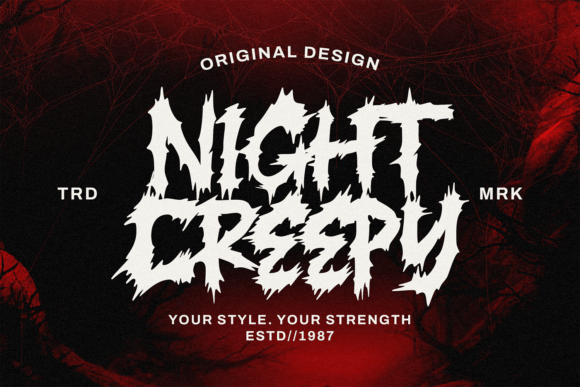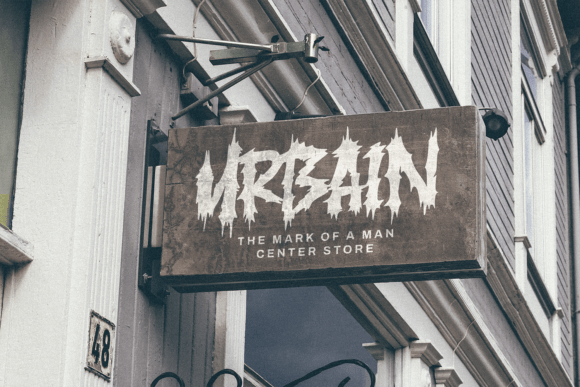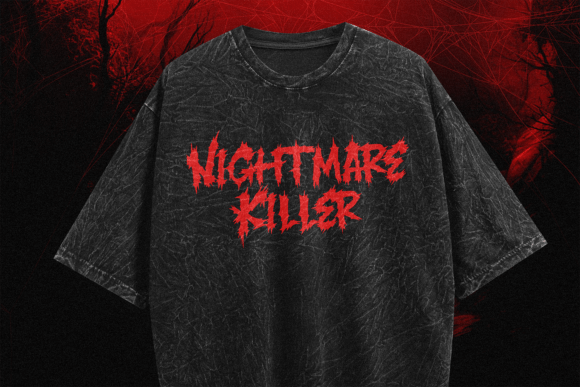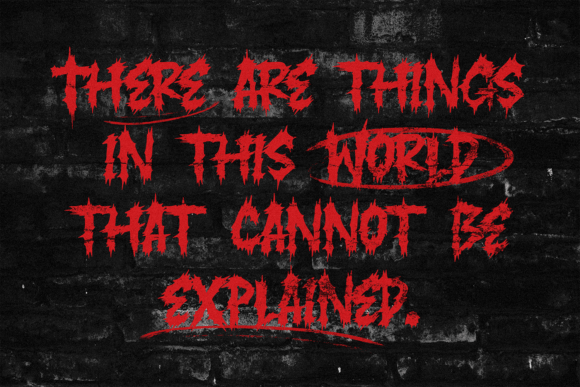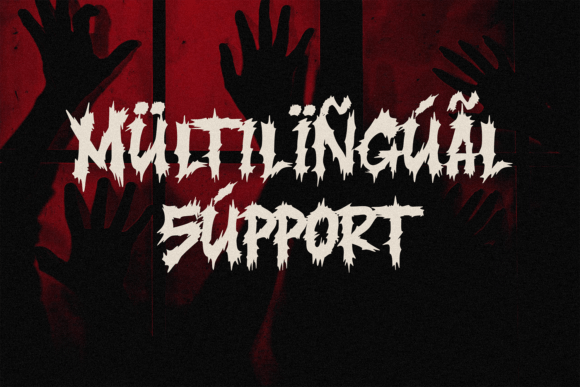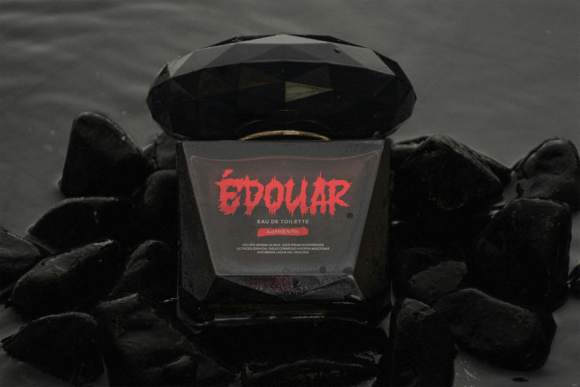
Introduction to Room Number Four Font Font
Fonts play a crucial role in design, and the Room Number Four Font font is a typeface that brings both character and versatility to any project. Whether you’re working on a branding project, a website, or a print design, the Room Number Four Font font offers a unique style that can elevate your work.
| 📌 Font Name | Room Number Four Font |
| 👤 Author | Dikas Studio |
Introducing Room Number Four – a brush font with raw, terrifying energy.
Its rough strokes, scary vibe, and hand-drawn character create a haunting atmosphere that feels alive on the page Perfect for horror posters, Halloween designs, ghost stories, creepy logos, or anything with a chilling theme, Room Number Four delivers a bold and unsettling presence that grabs attention instantly.
Key Features of Room Number Four Font Font
Why Choose Room Number Four Font Font?
The Room Number Four Font font is more than just a typeface – it’s a design tool that helps you communicate your message with style and clarity. Its unique character set and versatile design make it suitable for a wide range of applications, from elegant invitations to bold headlines.
With its carefully crafted letterforms and balanced proportions, the Room Number Four Font font ensures readability and visual appeal across all mediums.
What makes Room Number Four Font font special?
The Room Number Four Font font stands out with its unique design, exceptional readability, and versatility across various design applications.